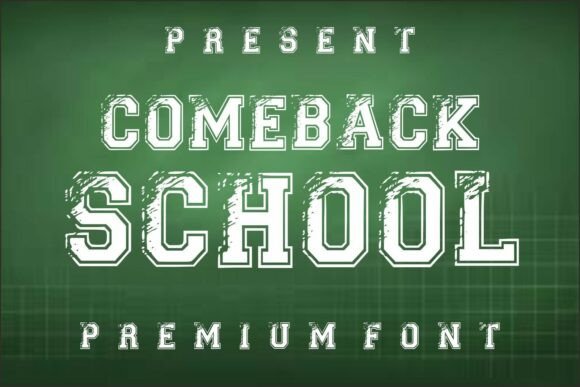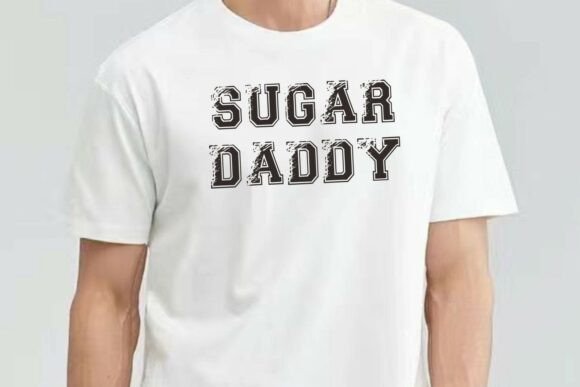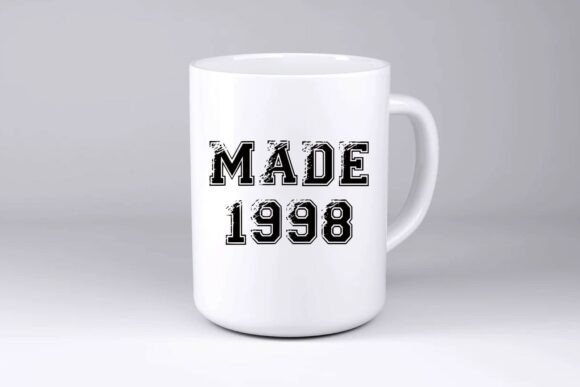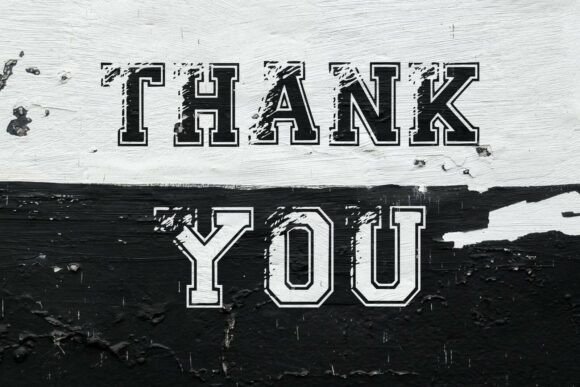
I’ll never forget the time I was working on a sports branding project, and my client asked me to create a bold, eye-catching logo that captured the energy of their college team. I scoured the internet for the perfect font, but nothing seemed quite right. That was until I stumbled upon the Comeback School font. This authentic sports classic display font has been a game-changer for my design work, and I’m excited to share its awesomeness with you! 💥
- ✅ Bold and dynamic: Comeback School font is perfect for making a statement with your designs. Its thick lines and sharp edges convey power and athleticism, making it ideal for sports-related projects.
- ✅ Highly versatile: This font can be used for a wide range of applications, from logos and posters to social media graphics and merchandise.
- ✅ Easy to read: Despite its bold nature, Comeback School font is surprisingly legible, even at smaller sizes.
Small Quirks and Limitations 🤔
- ⚠️ Limited use for body text: Due to its bold nature, Comeback School font is best suited for headlines and titles. It may not be the best choice for longer blocks of text.
- ⚠️ May not be suitable for all design styles: If you’re going for a more minimalist or elegant look, Comeback School font might not be the best fit.
The Designer Inspiration Behind Comeback School Font
The Comeback School font was inspired by the classic typography of college sports teams. Its creator aimed to capture the energy and excitement of sports in a bold, dynamic font that’s perfect for making a statement. The font’s strong, commanding look is sure to grab attention and leave a lasting impression.
Q: What type of projects is Comeback School font best suited for?
A: Comeback School font is ideal for sports-related projects, such as logos, posters, social media graphics, and merchandise.
Q: Can I use Comeback School font for body text?
A: While Comeback School font is legible, it’s best suited for headlines and titles. For longer blocks of text, consider using a more traditional font.
Q: Does Comeback School font support OpenType features?
A: Yes, Comeback School font supports OpenType features, including glyphs and stylistic alternates. You can access these features in compatible design software like Adobe Creative Cloud.